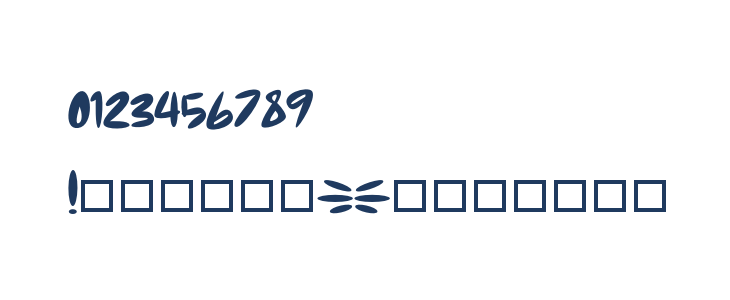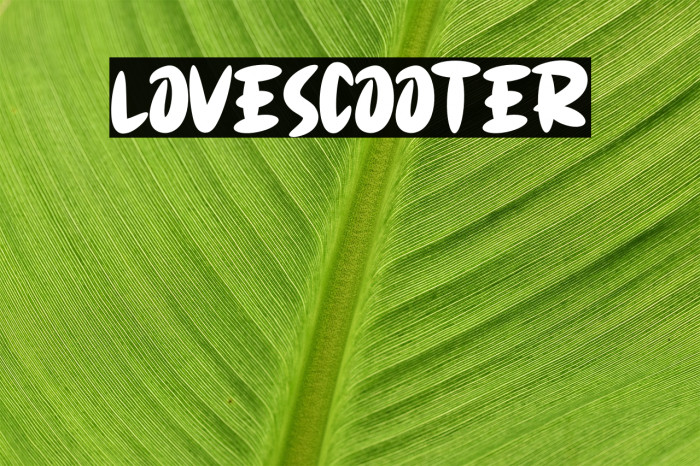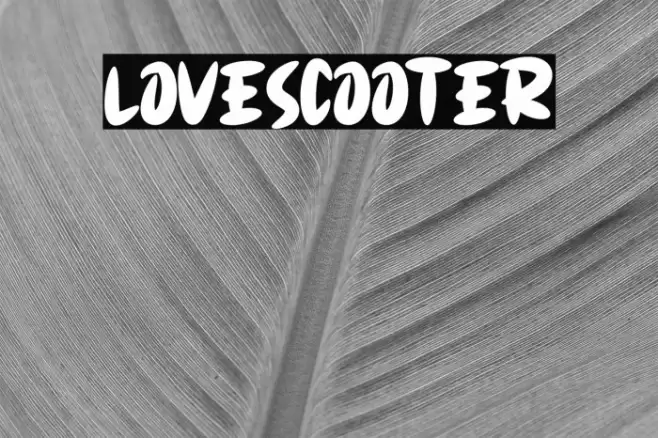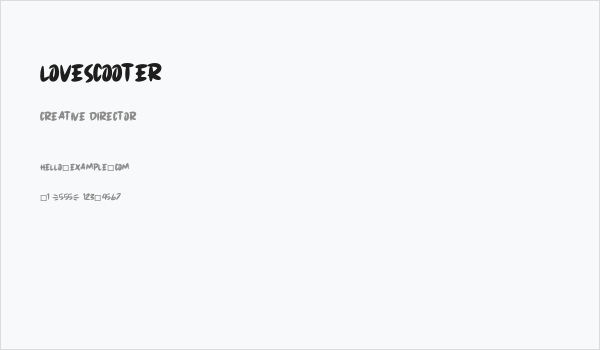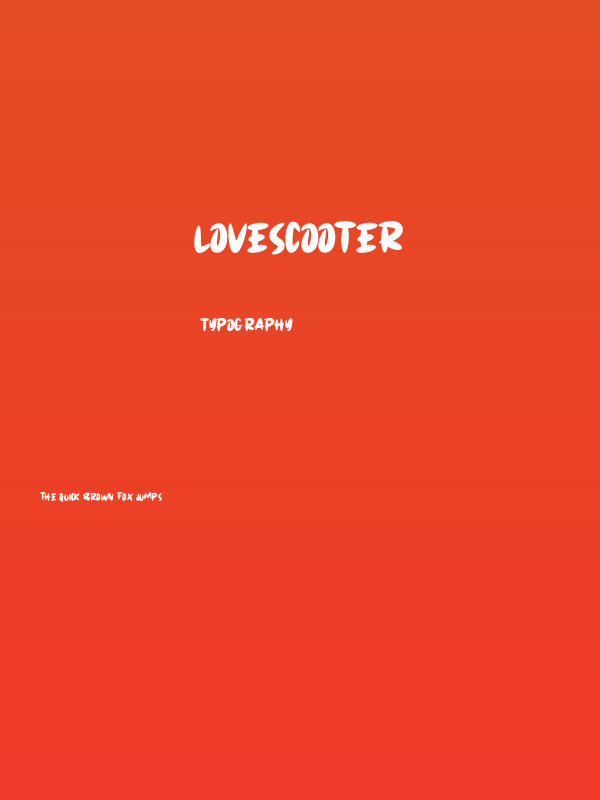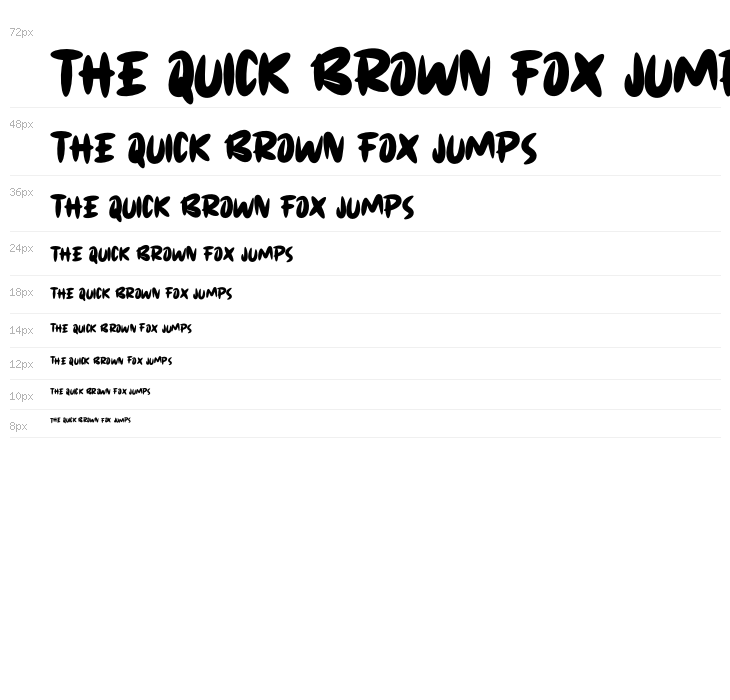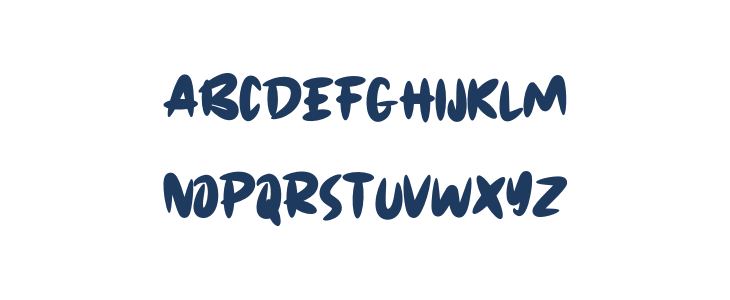
LOVESCOOTER Font
LOVESCOOTER Description
This font features a bold, energetic style with a handwritten appearance. The characters are rounded and slightly slanted, giving a playful and dynamic feel. The uppercase and lowercase letters maintain a consistent flow, while the numbers are equally bold and expressive. The special characters complement the overall style, adding to its versatility. This font is perfect for projects that require a lively and informal touch, such as event posters, social media graphics, and branding materials.
| Proposed Projects | Ideal for event posters, social media graphics, branding materials, and any project needing a lively, informal touch. |